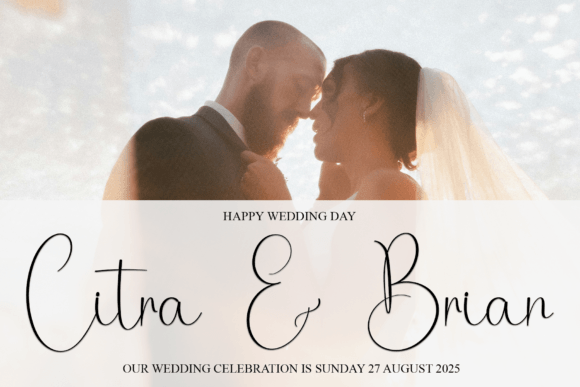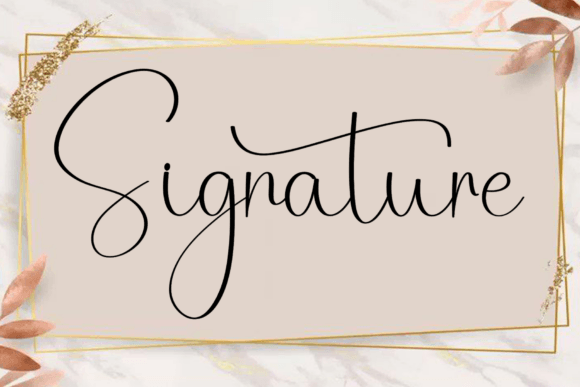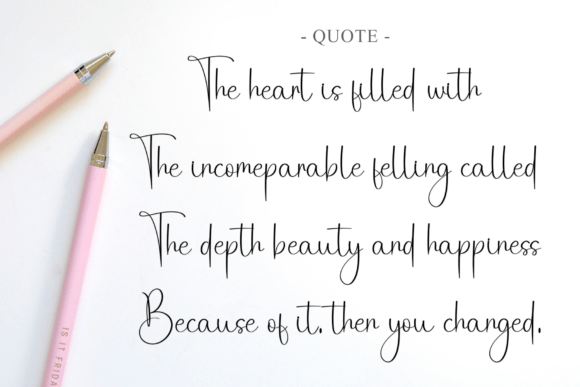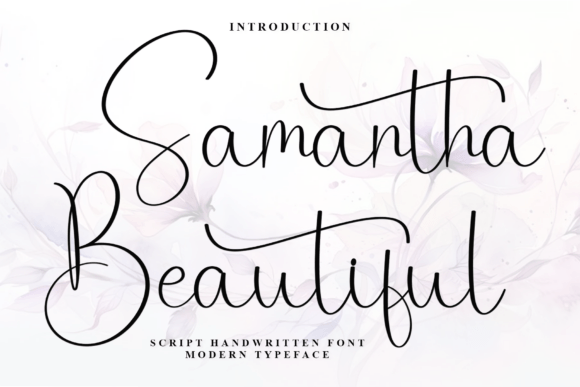
Introduction to Samantha Beautiful Font
Samantha Beautiful is a stylish beautiful and elegant font with a contemporary atmosphere and impeccable form, inspired by a timeless classic calligraphy.
Balanced and varied, this font was designed to enhance the beauty of your projects This font is PUA encoded which means you can access all of the amazing glyphs and ligatures with ease.